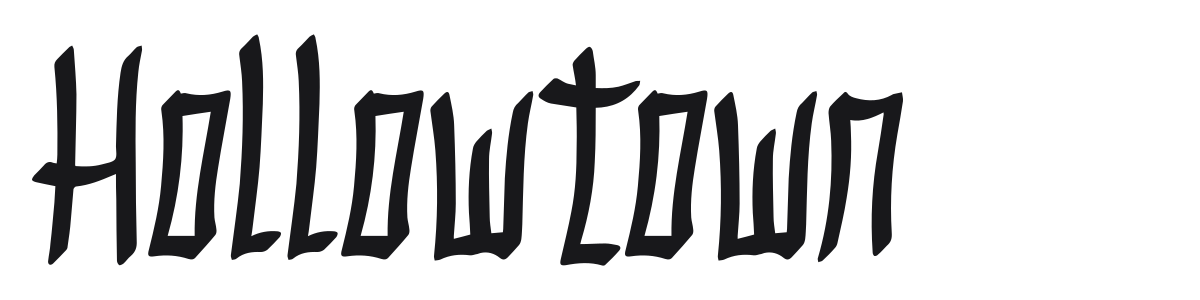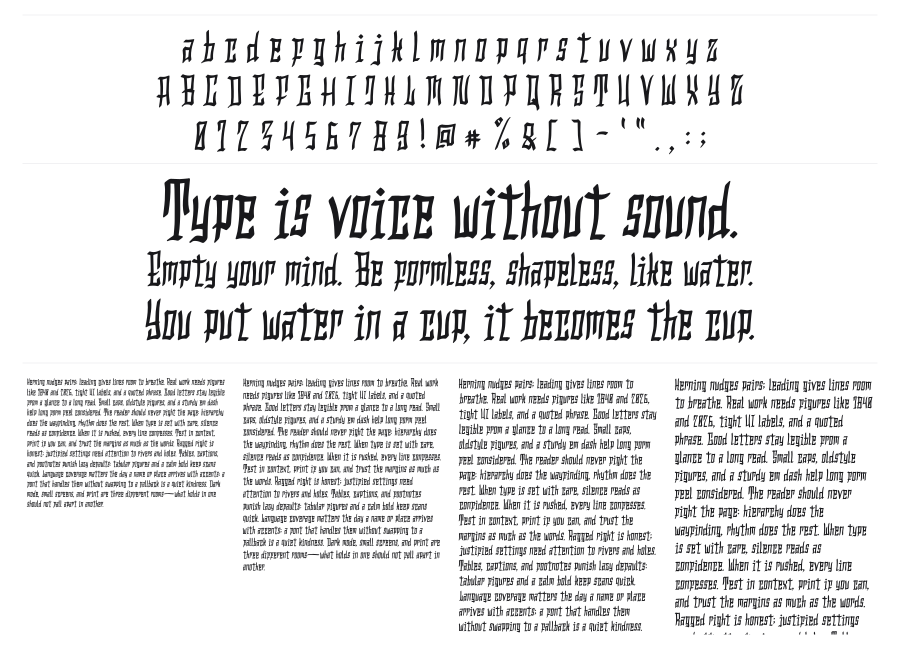
Hollowtown
Hollowtown is a bold blackletter-graffiti hybrid with a sharp, aggressive italic lean and angular stroke endings that sit somewhere between medieval script and spray-can lettering. The high stroke contrast and broken terminals give it raw, street-level energy while retaining the structural drama of gothic type. Strong for band logos, posters, and any branding that needs to feel dangerous.